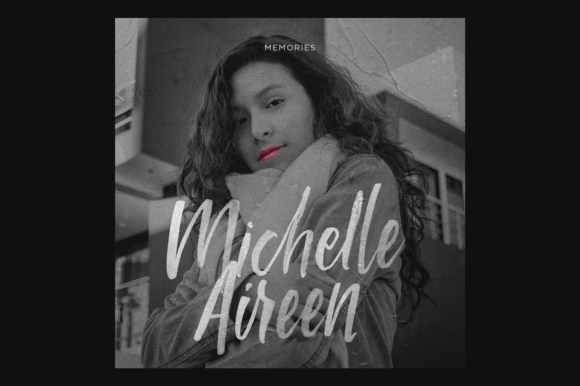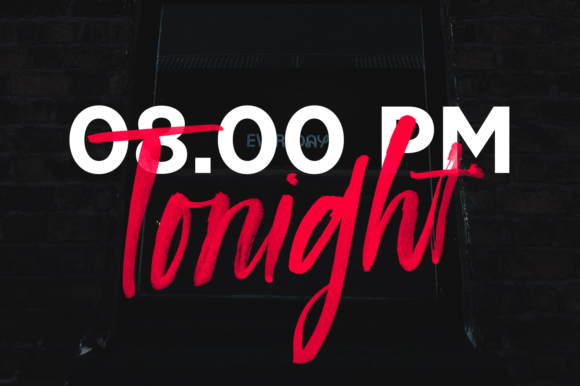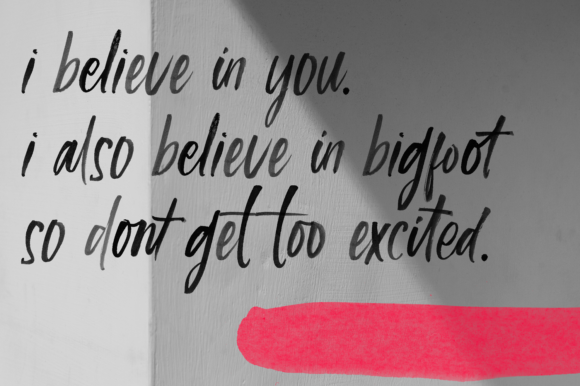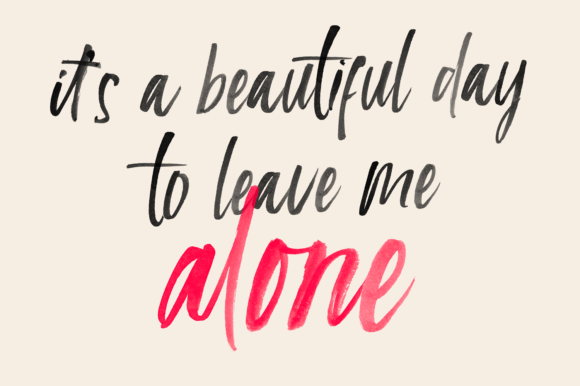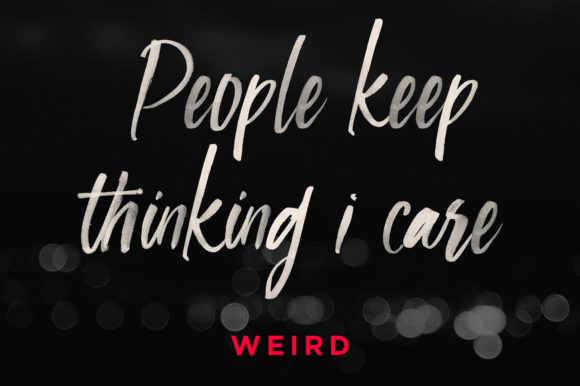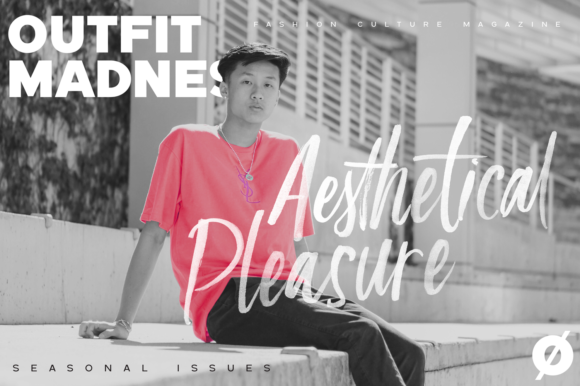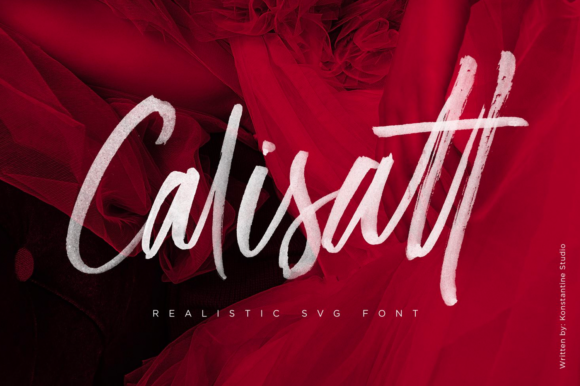
The Elegance of Calisatt Font: A Designer’s Delight
I’ll never forget the time I was working on a wedding invitation project, and my client asked for a font that was elegant, stylish, and conveyed a sense of sophistication. I scoured the internet, tried out countless fonts, but nothing seemed quite right. That was until I stumbled upon Calisatt Font. It was love at first sight! 💕
Calisatt is a stylish and incredibly elegant script font that has become a staple in my design toolkit. It looks stunning on wedding invitations, thank you cards, quotes, greeting cards, logos, business cards, and every other design that needs a handwritten touch.
• ✨ Elegant and sophisticated design
• 🎉 Beautifully crafted with attention to detail
• 💻 Works seamlessly across various design platforms
While Calisatt Font is an excellent choice, there are a few things to keep in mind: ⚠️ It may not be the best choice for body text, as it’s a script font and can be a bit ornate for long blocks of text. 🤔 Additionally, some users have reported issues with kerning, but this can usually be adjusted in most design software.
The Backstory of Calisatt Font
Calisatt Font was designed with the intention of creating a beautiful, elegant script font that would add a touch of sophistication to any design. The designer drew inspiration from classic calligraphy and modern script fonts, resulting in a unique and stylish font that’s perfect for a variety of design projects.
Q: What type of designs is Calisatt Font best suited for?
A: Calisatt Font is perfect for designs that need a handwritten touch, such as wedding invitations, thank you cards, quotes, greeting cards, logos, and business cards.
Q: Is Calisatt Font easy to read?
A: Yes, Calisatt Font is highly legible, even at small sizes. However, it’s a script font, so it may not be the best choice for body text.